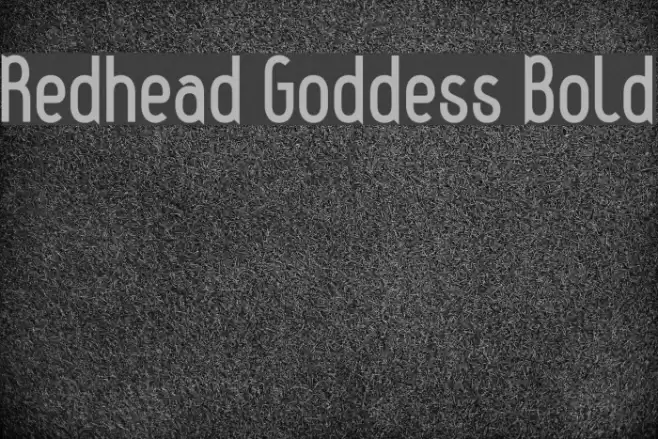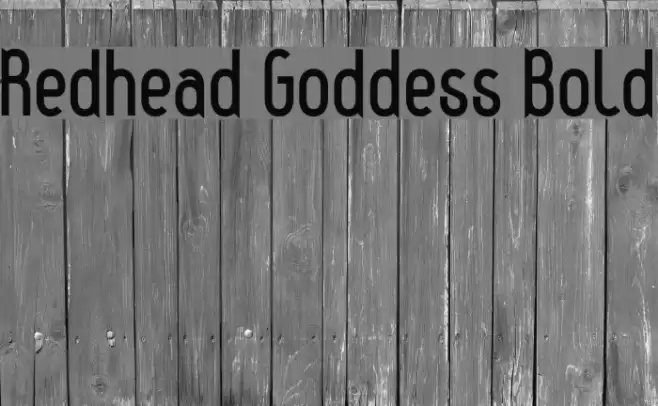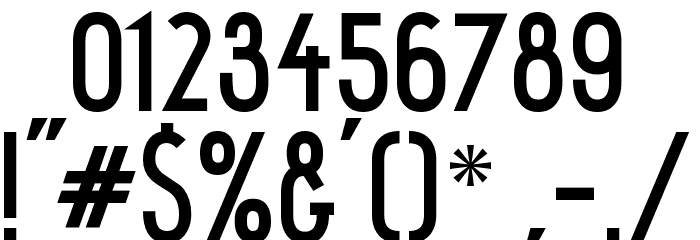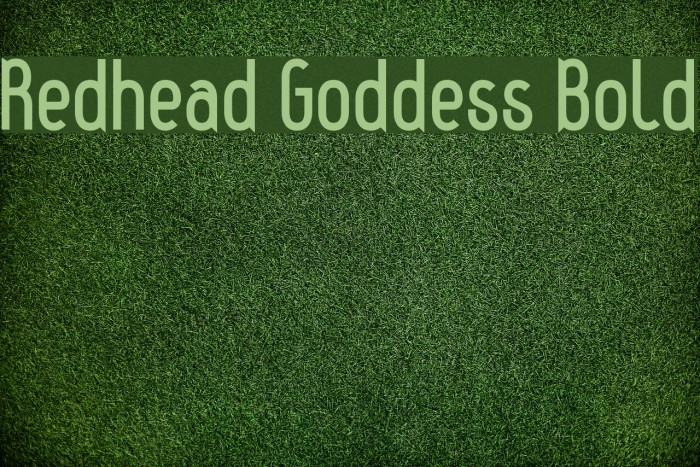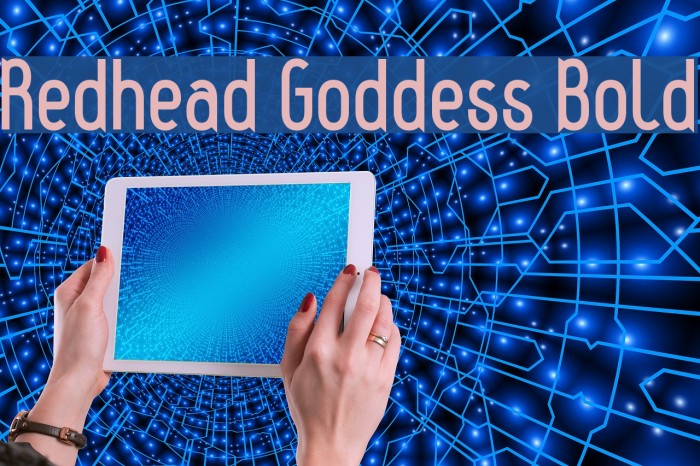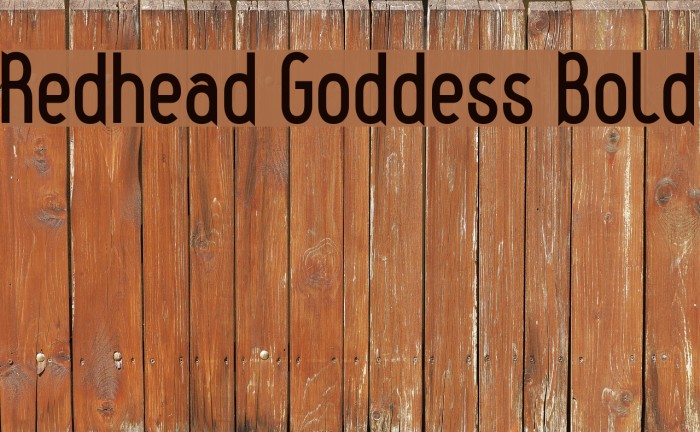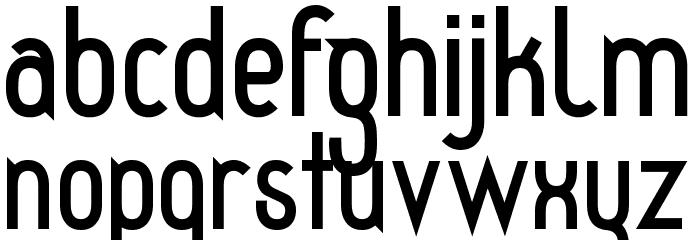
Redhead Goddess Bold Font
Redhead Goddess Bold Description
This font features a bold and modern design with clean, geometric lines and a strong presence. The uppercase letters are tall and slightly condensed, giving a sleek and contemporary feel. The lowercase letters maintain a consistent height, contributing to a uniform appearance. Numbers are clear and legible, making them suitable for various applications. The special characters are distinct and well-defined, enhancing the font's versatility. Overall, this font combines a modern aesthetic with functionality, making it ideal for eye-catching designs.
A bold, modern font with geometric lines and a sleek appearance from Formal fonts.
- Proposed Projects: Ideal for branding, advertising, headlines, and digital media projects where a strong, modern impact is desired.
- Use Case: Headlines, Logos, Branding